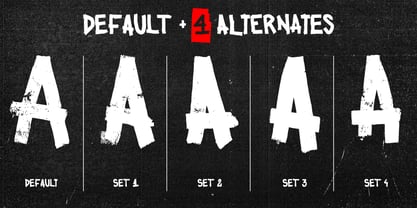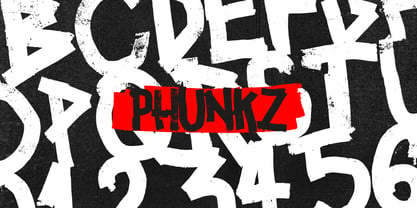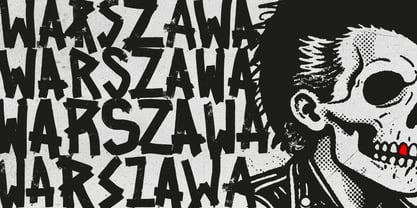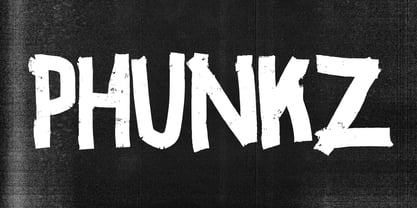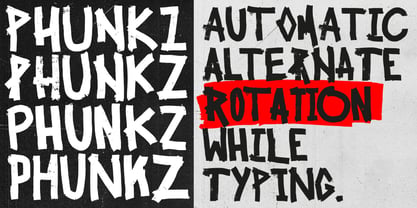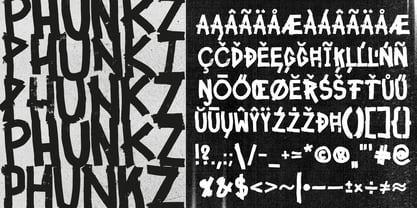
Phunkz
The Phunkz Font Family was designed by Tomek Kudlak and published by Obiekt Studio. Phunkz contains 1 styles. More about this family
Phunkz is a raw, loud typeface inspired by punk poster lettering, stencil graffiti, and hand-painted wall typography. It captures the imperfect rhythm and attitude of DIY print culture. Each base character includes up to four alternate versions that automatically rotate while typing (via contextual alternates), giving every word a spontaneous, authentic texture. Phunkz is built for identities, posters, record sleeves, editorial headlines, and any project that needs to scream instead of whisper. A typeface born from noise, not order.